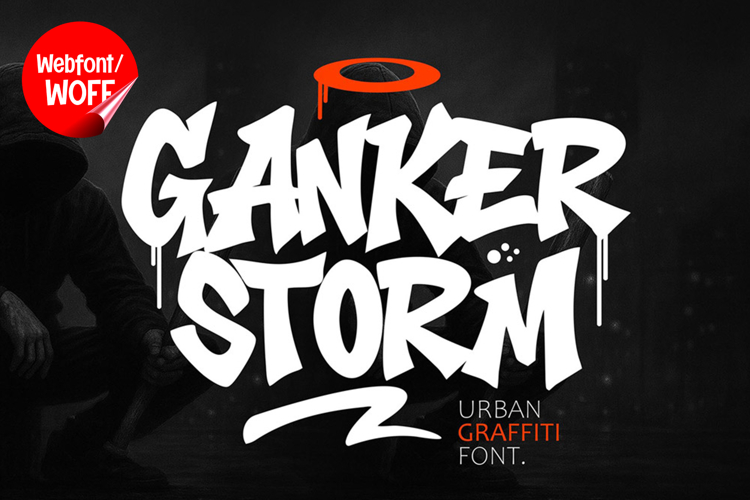
Ganker Storm | Graffiti Swash Webfont for Bold Urban Website
Ganker Storm is an amazing graffiti webfont with dynamic swash details, designed to bring bold energy and expressive movement into modern website design. Inspired by street art and freestyle graffiti lettering, this font combines strong shapes with stylish swashes that add flow and personality to every character. It is an ideal choice for projects that require a powerful, creative, and eye-catching visual identity.
Ganker Storm features a full set of uppercase characters designed with bold graffiti forms and expressive swash elements. The swashes extend and enhance the letter shapes, creating a sense of motion and artistic flair. These letterforms are perfect for headlines, banners, hero sections, and featured content where attention-grabbing typography is essential. The combination of structure and flow helps create a strong visual hierarchy.
In addition to letters, the font includes numbers and punctuation, allowing flexible usage across various parts of a website. It works well for promotional text, event information, pricing displays, and navigation highlights. Each character maintains the same graffiti style, ensuring consistency and cohesion throughout the design.
With multilingual support, Ganker Storm includes a wide range of accented characters, making it suitable for international websites and global audiences. This allows content to be displayed clearly across different languages while preserving the expressive graffiti aesthetic.
The graffiti style with swash details makes Ganker Storm especially suitable for urban-themed websites, streetwear brands, music platforms, gaming interfaces, and creative portfolios. The flowing swashes add a unique visual rhythm, making the design feel more dynamic and engaging. It is particularly effective for branding and display text that needs to stand out in competitive digital spaces.
Despite its expressive and decorative style, Ganker Storm is designed with readability in mind. The spacing and structure of each character are carefully balanced to ensure clarity, especially in display sizes. This makes it effective for bold headings and short content elements where both style and legibility are important.
Ganker Storm is a webfont that blends graffiti aesthetics with artistic swash elements and modern digital usability. Its bold shapes, flowing extensions, and urban influence create a distinctive typographic presence that enhances website design. For projects that demand energy, creativity, and a strong street-inspired identity, Ganker Storm offers a powerful and visually engaging solution.